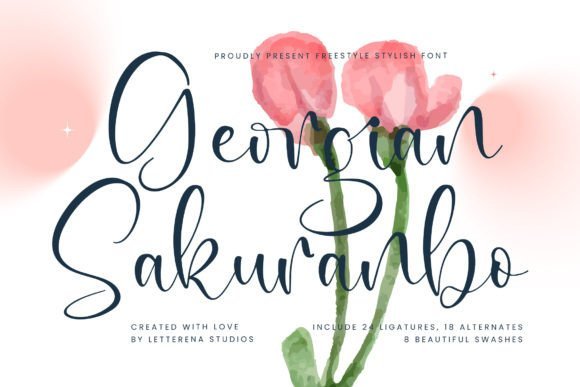
Unleash the Luxurious Feel with Georgian Sakuranbo Font
Imagine you’re strolling through a vintage market, surrounded by elegant stationery and beautiful typography. The smell of old books and the sound of gentle chatter fill the air, and you stumble upon a stunning invitation card that catches your eye. The elegant script font used on the card is what makes it truly stand out, and you can’t help but wonder what it would be like to work with a font that exudes such luxury and sophistication.
Enter the Georgian Sakuranbo Font, a Luxury Script font designed by Letterena, perfect for designers who want to add a touch of elegance to their projects. This versatile font is suitable for a wide range of applications, from logos and branding projects to homeware designs and product packaging. Whether you’re creating a bespoke invitation card or a luxury product label, the Georgian Sakuranbo Font is the perfect choice for designers who value high-end typography.
Georgian Sakuranbo Font Key Features
- Font Family: Georgian Sakuranbo, a unique and elegant script font designed for Georgian language typesetting.
- Size: The font comes in a single weight, making it suitable for body text and titles.
- Resolution: Designed for high-resolution displays, the font looks crisp and clear at 300 DPI and above.
- Unique Characteristics: The font features intricate connections between letters, giving it a beautiful and flowing appearance, while maintaining legibility.
- Language Support: Specifically designed for the Georgian language, the font also supports other languages that use the Georgian script.
Review of Georgian Sakuranbo Font
I recently had the chance to work with the Georgian Sakuranbo Font, and I must say it’s a unique addition to any design project. ✨ One thing that works well with this font is its elegant and refined look. It’s perfect for creating a sense of sophistication and luxury in your designs.
Another great aspect of Georgian Sakuranbo Font is its versatility. It can be used for a variety of purposes, from headings to body text, and it works well in both digital and print media.
While Georgian Sakuranbo Font has many great qualities, there are a few limitations to consider: ⚠️
- It may not be suitable for use in large blocks of text due to its elegant, cursive style.
- The font may not be available in as many languages as some other fonts, which could be a limitation for designers working on multilingual projects.
- The font’s complexity may make it difficult to use in certain design software or systems.
Overall, I think Georgian Sakuranbo Font is a great addition to any designer’s toolkit. While it may have some limitations, its unique style and versatility make it a great choice for designers looking to add a touch of elegance to their projects.
Use the Georgian Sakuranbo font for:
1. Creating elegant and sophisticated designs.
2. Adding a touch of Asian flair to your designs.
3. Creating custom logos or branding materials.
4. Adding emphasis to key messages or headlines.
Remember to adjust the font size and style to ensure readability and balance in your design.
Alternatives to Georgian Sakuranbo Font
Pacifico is a modern calligraphy font that features elegant and flowing lines. It’s ideal for creating a romantic and sophisticated atmosphere in designs such as wedding invitations, luxury brand logos, and high-end packaging.
Comparison: While Georgian Sakuranbo Font has a unique and playful feel, Pacifico is more refined and sophisticated. Pacifico is a better choice for designs that require a touch of elegance and sophistication, whereas Georgian Sakuranbo Font is more suitable for casual and playful designs.
Great Vibes is a handwritten font that features a mix of modern and vintage elements. It’s perfect for creating a fun and energetic atmosphere in designs such as food labels, social media graphics, and street art posters.
Comparison: Great Vibes Font has a similar playful feel to Georgian Sakuranbo Font, but it’s more versatile and can be used in a wider range of designs. Great Vibes Font is a better choice for designs that require a fun and energetic vibe, whereas Georgian Sakuranbo Font is more suitable for designs that require a unique and quirky feel.